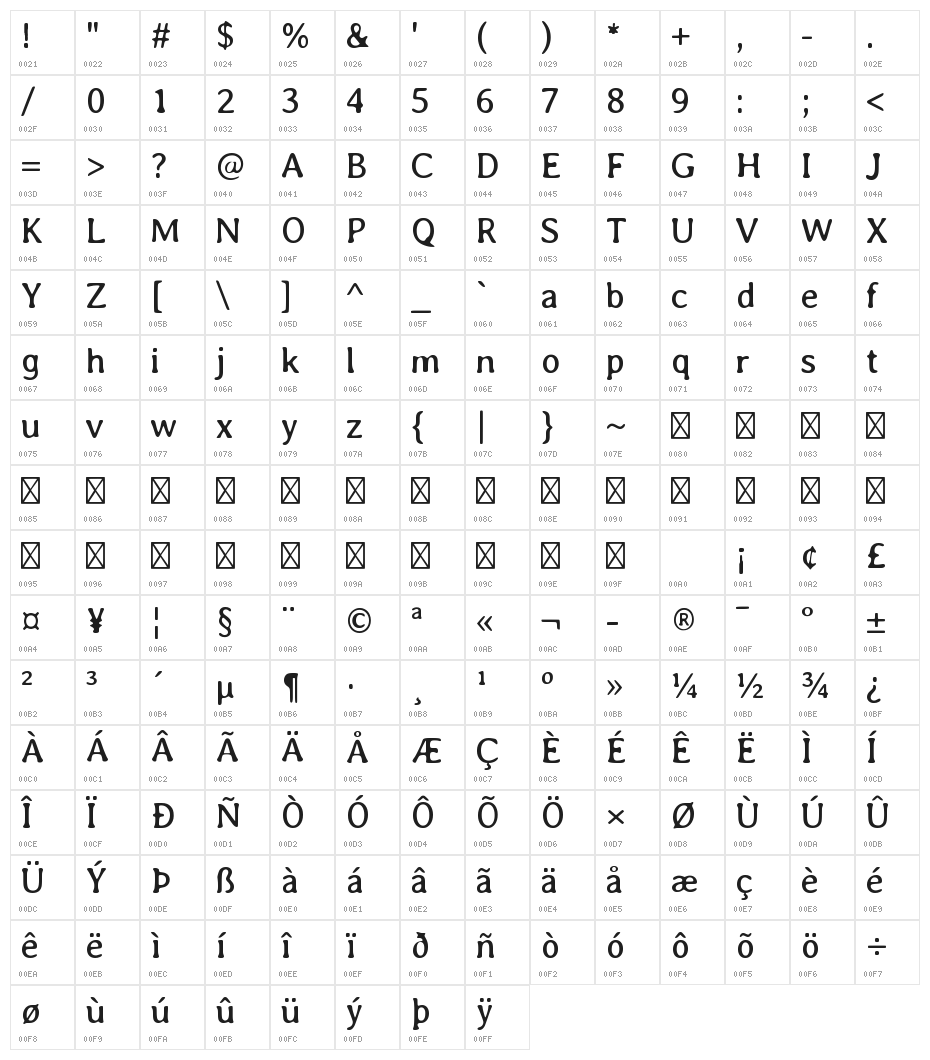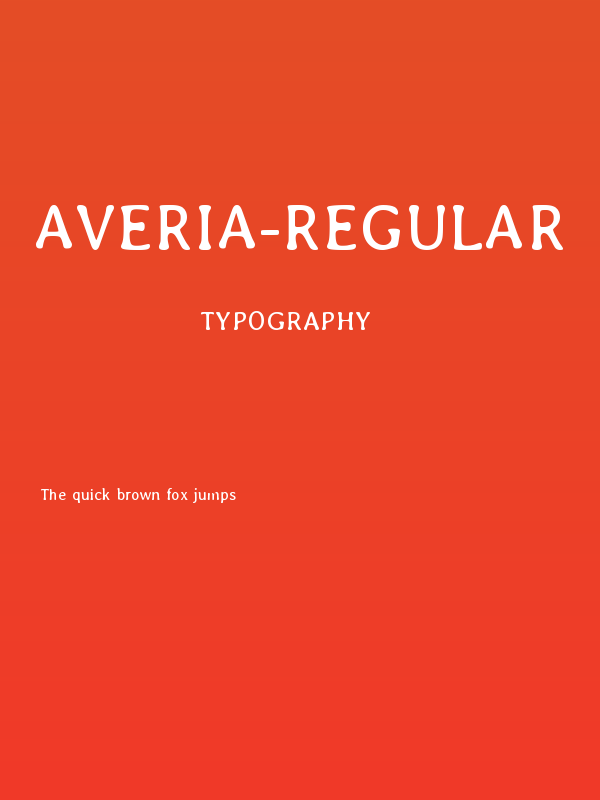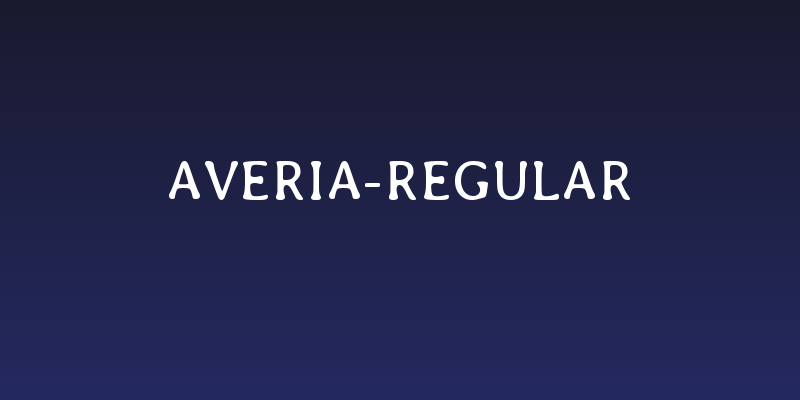
Averia-Regular Font
Averia-Regular Description
This font features a playful and slightly irregular design, giving it a unique and approachable character. The letters have a hand-drawn quality with rounded edges and subtle variations in stroke width, which adds to its charm. The uppercase letters are bold and prominent, while the lowercase letters maintain a consistent flow with a slightly whimsical touch. The numerals are clear and easy to read, matching the overall style of the alphabet. Special characters are well-integrated, maintaining the font's cohesive appearance. This font is versatile, suitable for both digital and print media, and can add a friendly and informal tone to any project.